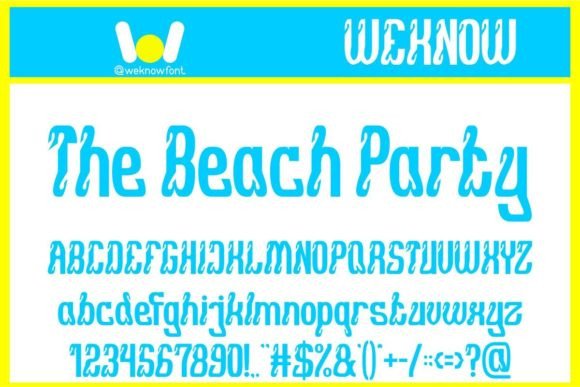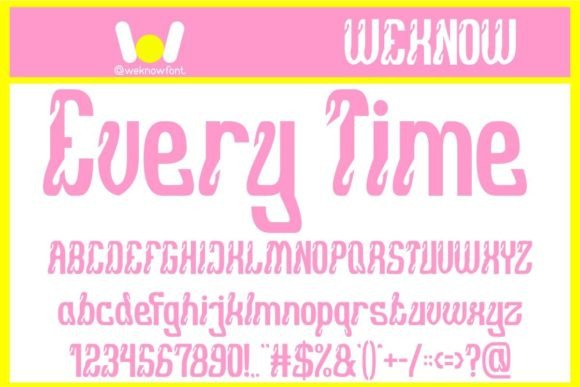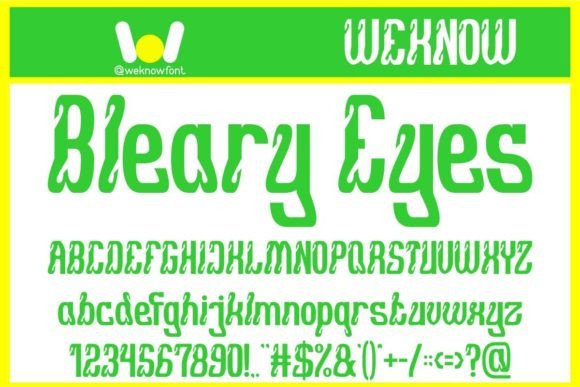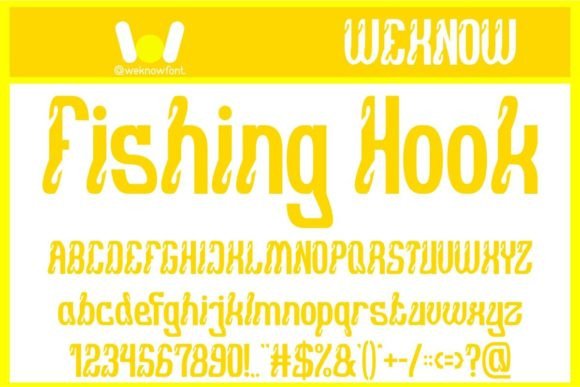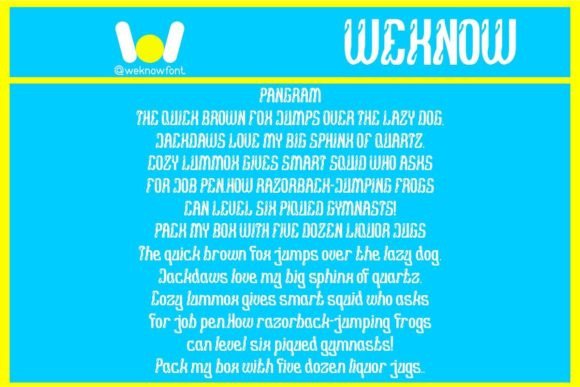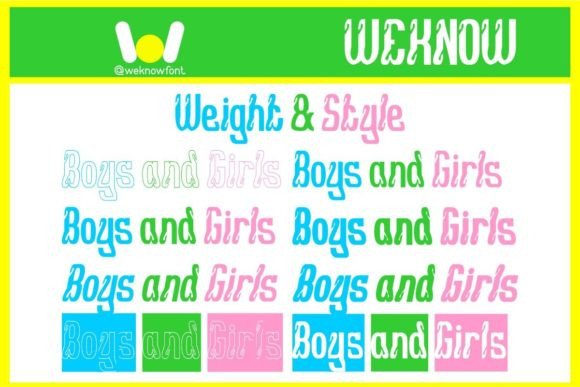
Unlocking the Magic of ‘Boys and Girls’ Font: A Designer’s Delight
I’ll never forget the time I was working on a branding project for a trendy clothing line, and my client asked for a font that would make their logo stand out. I scoured the internet, tried out countless fonts, but nothing seemed quite right. That was until I stumbled upon ‘Boys and Girls’ – a fancy display font that instantly caught my eye. Its unique charm and sophisticated typography won me over, and I knew I had found the perfect fit. In this article, I’ll dive into the world of ‘Boys and Girls’ font, exploring its features, uses, and what makes it a must-have for designers, crafters, and creative hobbyists.
A Closer Look: What I Love About ‘Boys and Girls’ Font
So, what makes ‘Boys and Girls’ font so special? Here are a few things that I absolutely love:
• ✨ Unique charm: ‘Boys and Girls’ has a distinct personality that sets it apart from other fonts. Its fancy allure adds a touch of sophistication to any design.
• ✅ Versatility: This font is incredibly versatile, making it perfect for a wide range of applications, from logos and headlines to apparel and digital media.
• 💫 OpenType features: ‘Boys and Girls’ supports OpenType features, including glyphs and stylistic alternates, giving designers a wealth of creative options.
While ‘Boys and Girls’ font is amazing, it’s not without its quirks. Here are a few things to keep in mind:
• ⚠️ Legibility at small sizes: Like many display fonts, ‘Boys and Girls’ can be tricky to read at small sizes. Make sure to use it at larger sizes or for headlines.
• 🤔 Limited use in body text: While ‘Boys and Girls’ is perfect for headlines and titles, it’s not the best choice for body text. Stick to a clear, readable font for longer blocks of text.
The Story Behind ‘Boys and Girls’ Font
The story behind ‘Boys and Girls’ font is one of creativity and experimentation. According to its designer, the font was inspired by the classic typography of the past, with a modern twist. The goal was to create a font that would be both elegant and playful, perfect for designers looking to add some extra flair to their projects.
What is ‘Boys and Girls’ font best used for? ‘Boys and Girls’ font is perfect for logos, headlines, titles, and any project that requires a touch of elegance and sophistication.